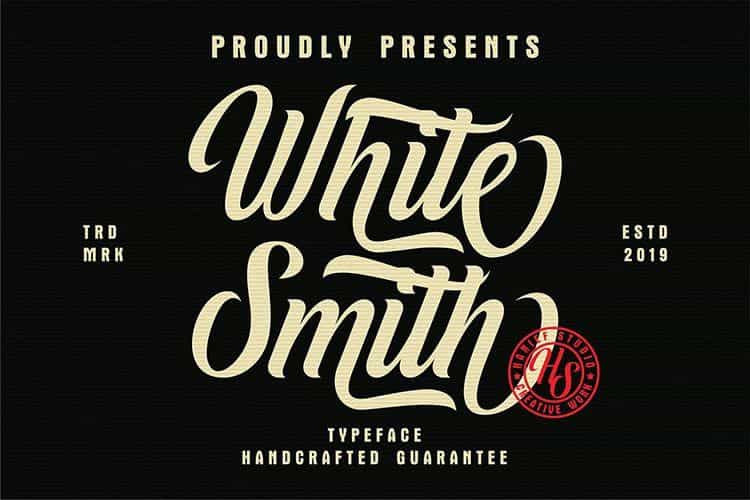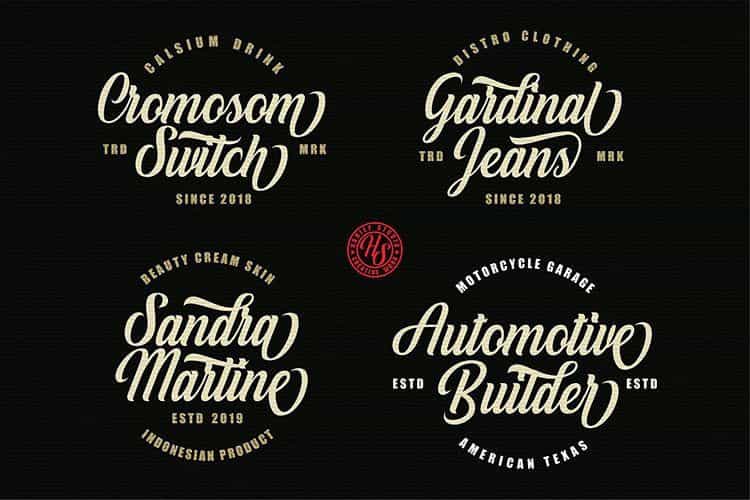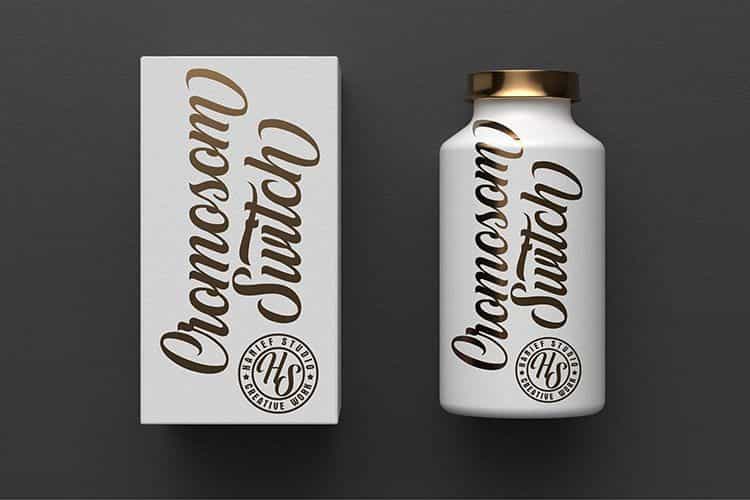
Introducing White Smith Font. This is a design work of Hanzel Studio and has been published on the internet. A new trend that is a mix between trendy fashion and streetwear and hand lettering style. Perfect for logos, quotes, product labels, headers, flyers, T-shirts, social networks and cards.